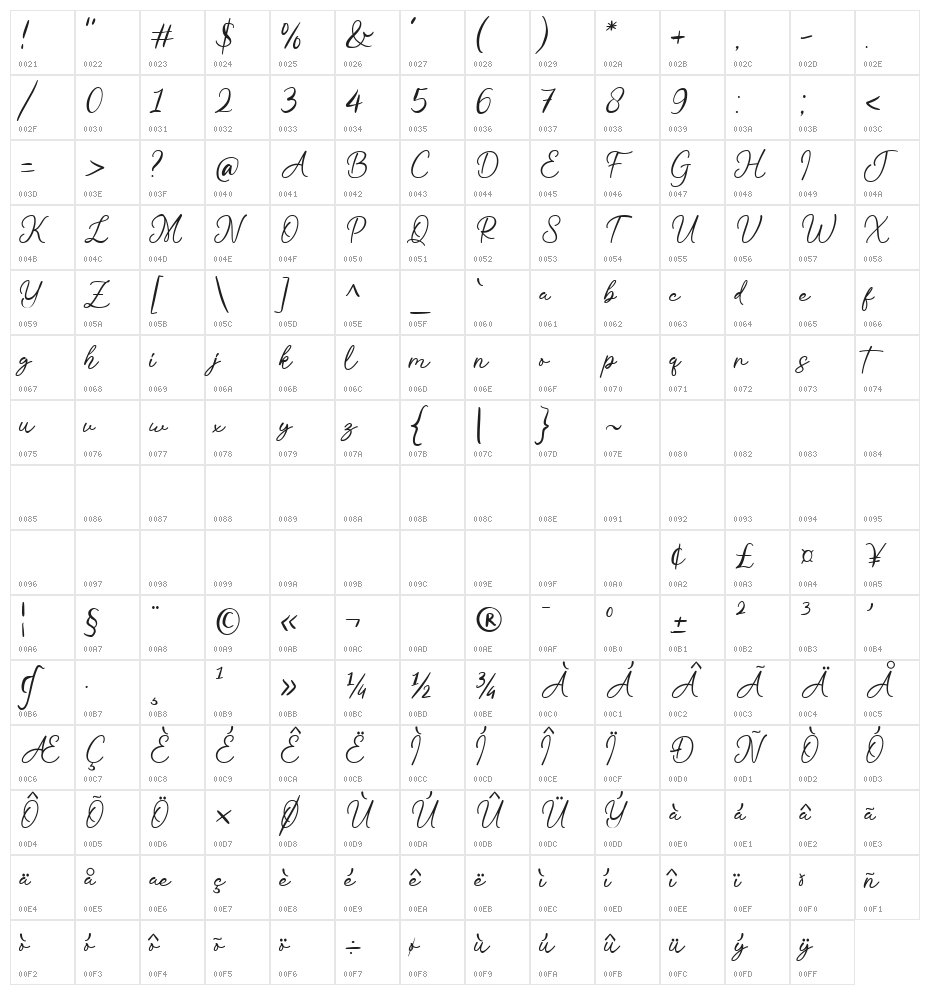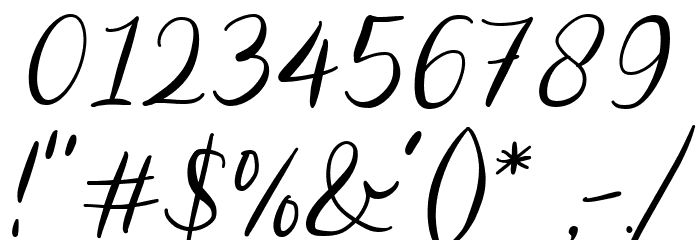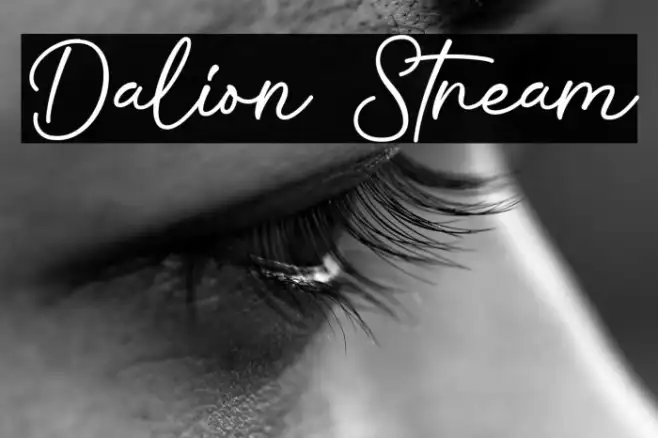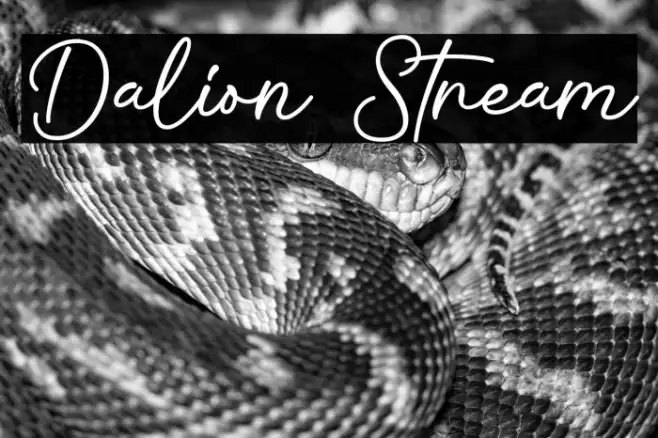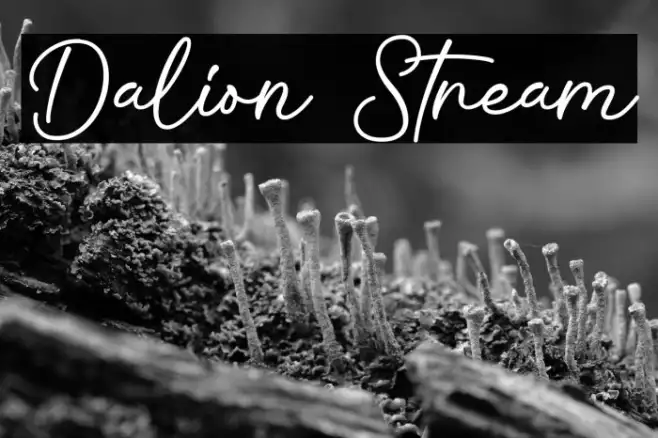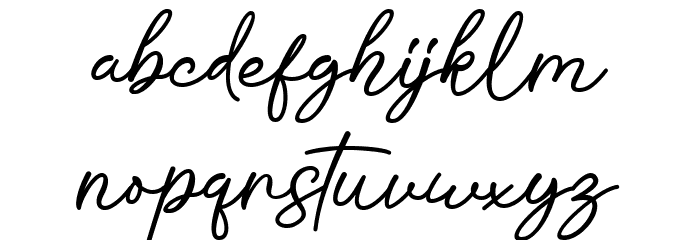
Dalion Stream Font
Dalion Stream Description
This elegant script font features a flowing, cursive style with smooth, connected strokes that evoke a sense of sophistication and grace. The uppercase letters are slightly more ornate, with gentle curves and loops, while the lowercase letters maintain a consistent fluidity. The numerals and special characters are designed to complement the overall script style, ensuring a cohesive look across all text. This font is ideal for projects that require a touch of elegance and personal flair, such as invitations, greeting cards, and branding materials.
| Proposed Projects | Ideal for wedding invitations, greeting cards, personal branding, and elegant logos. |